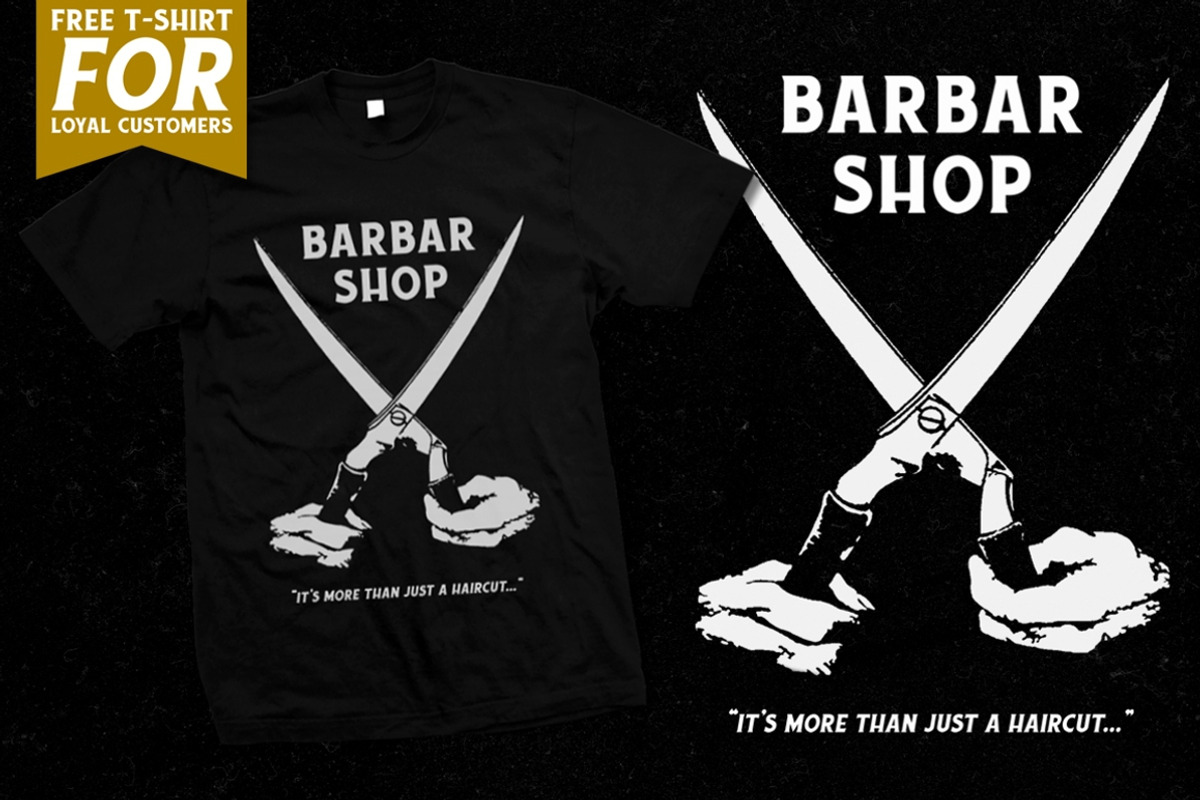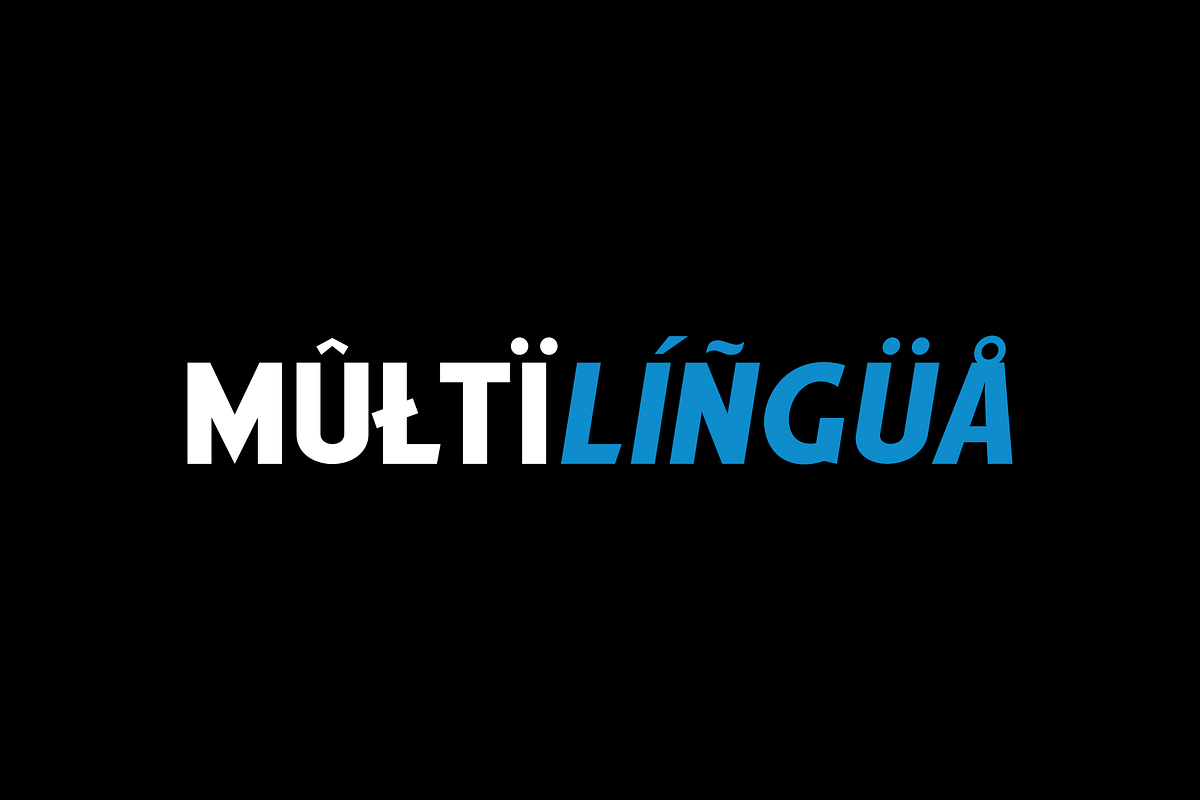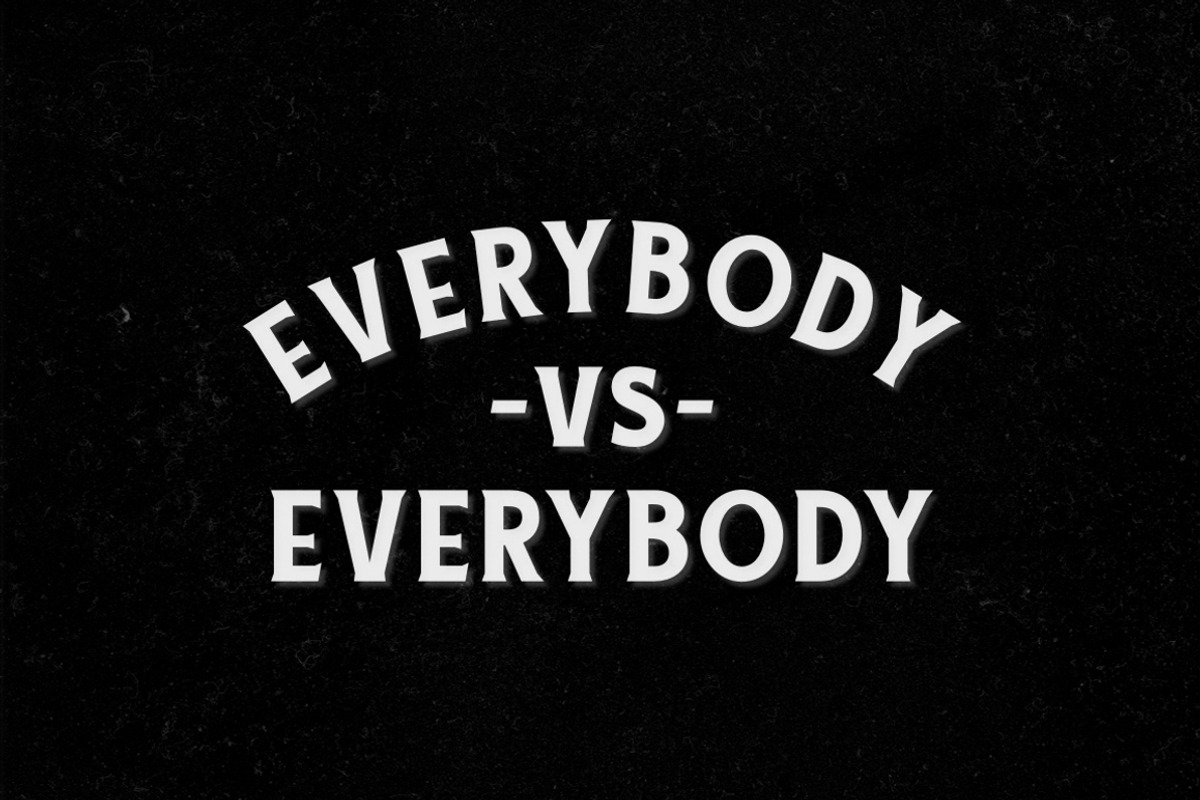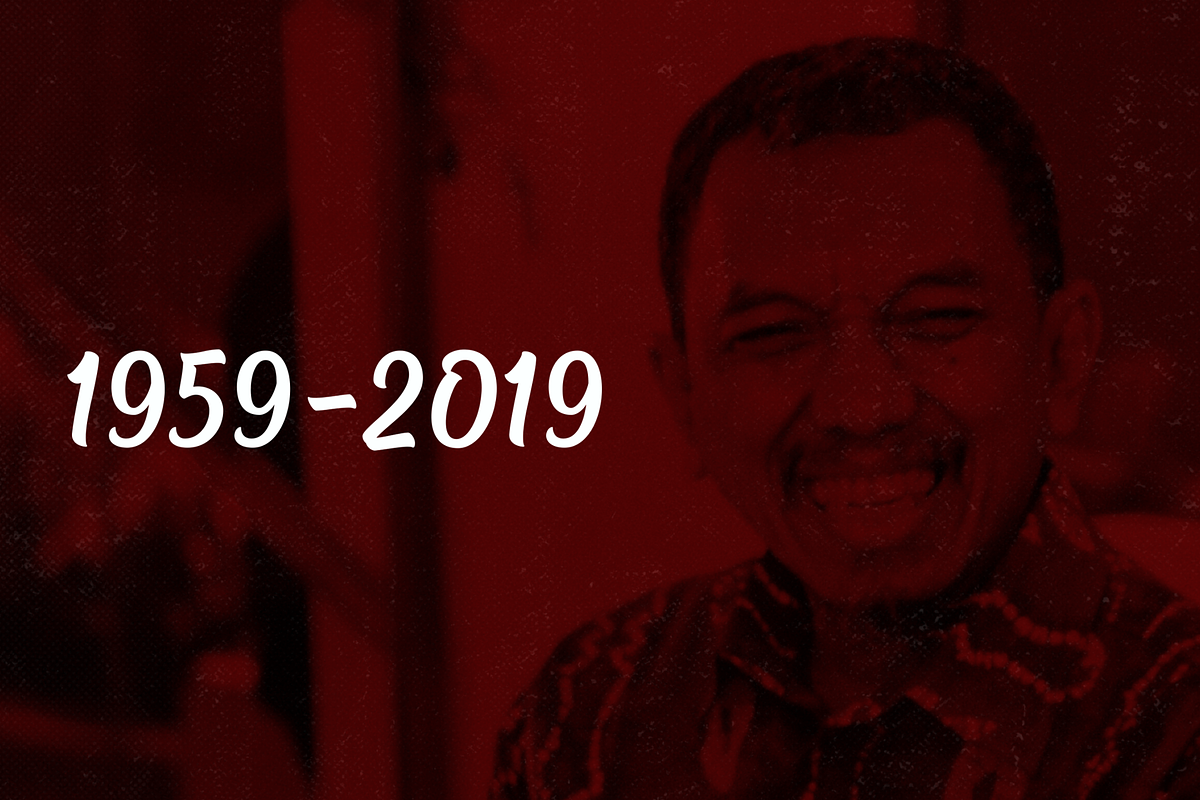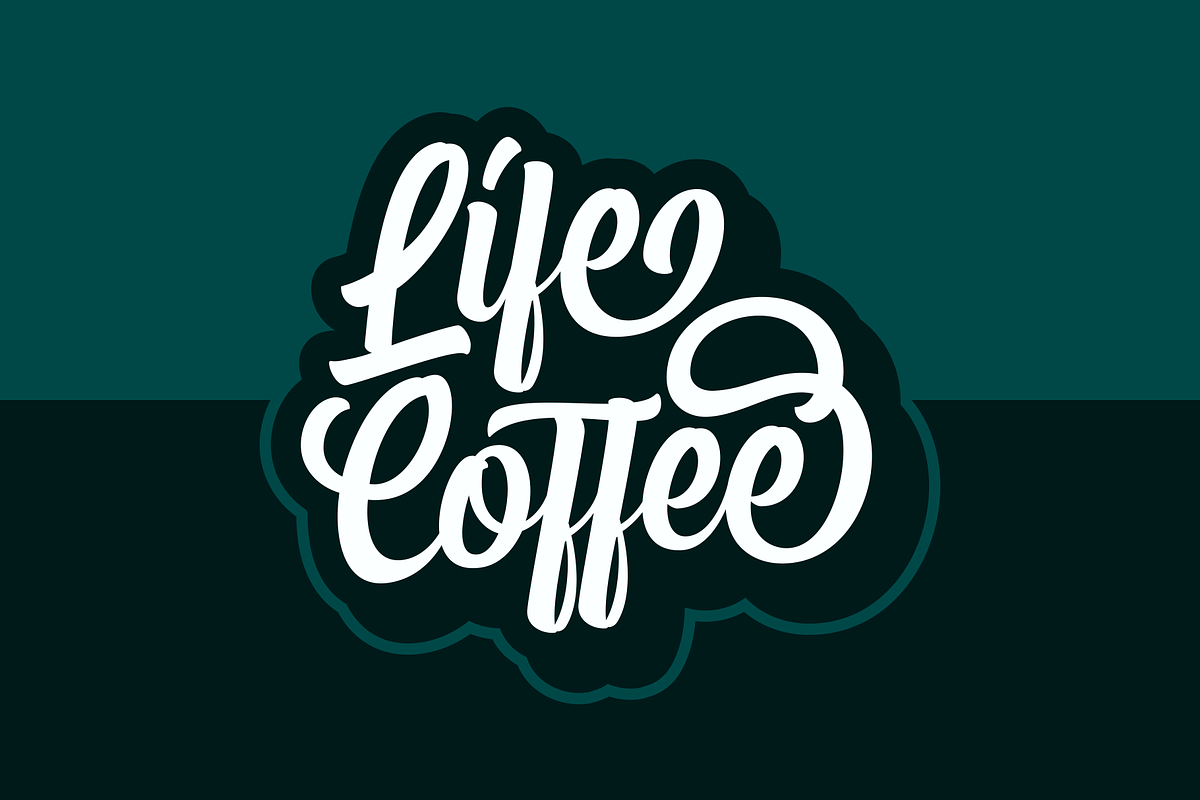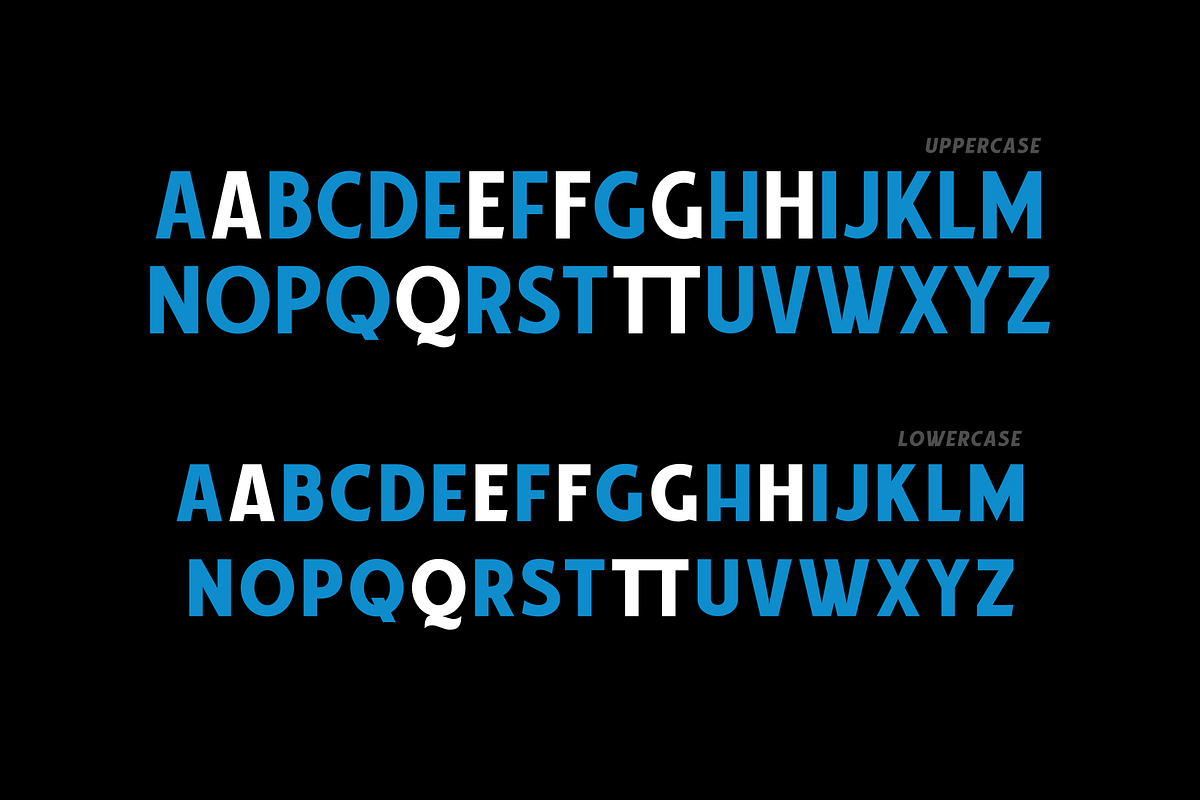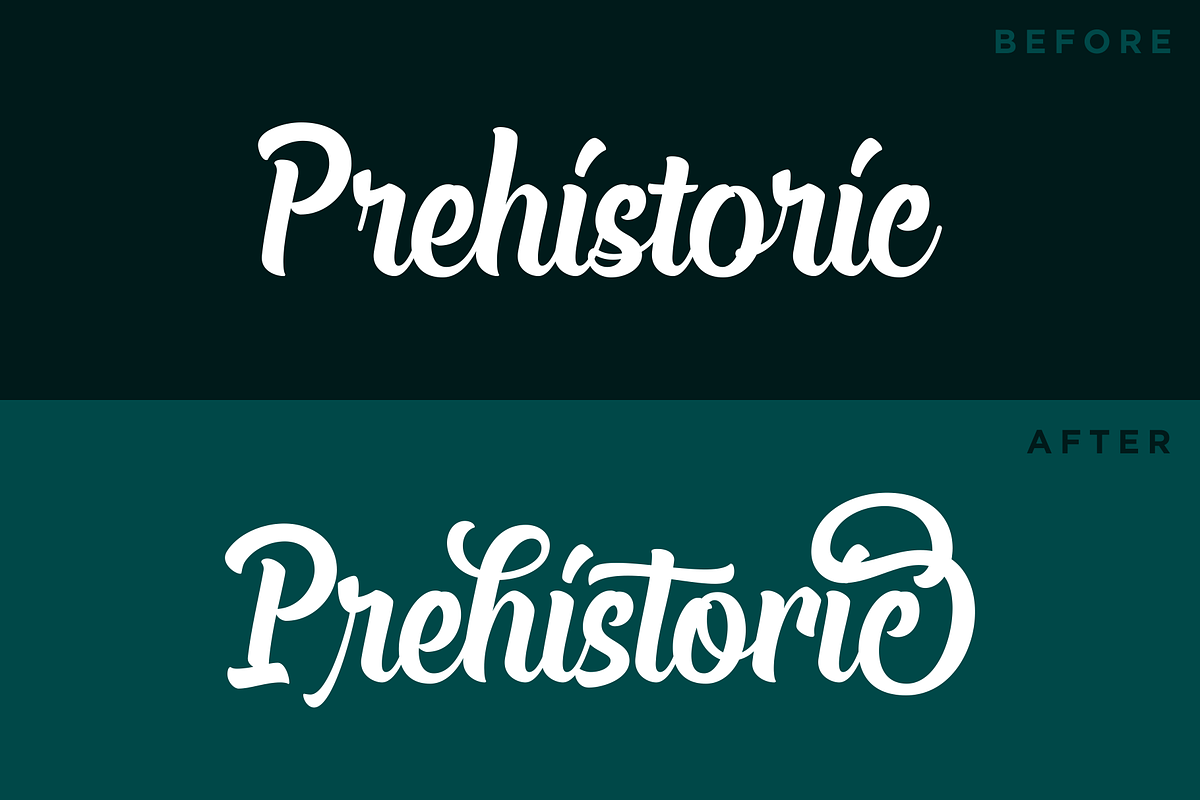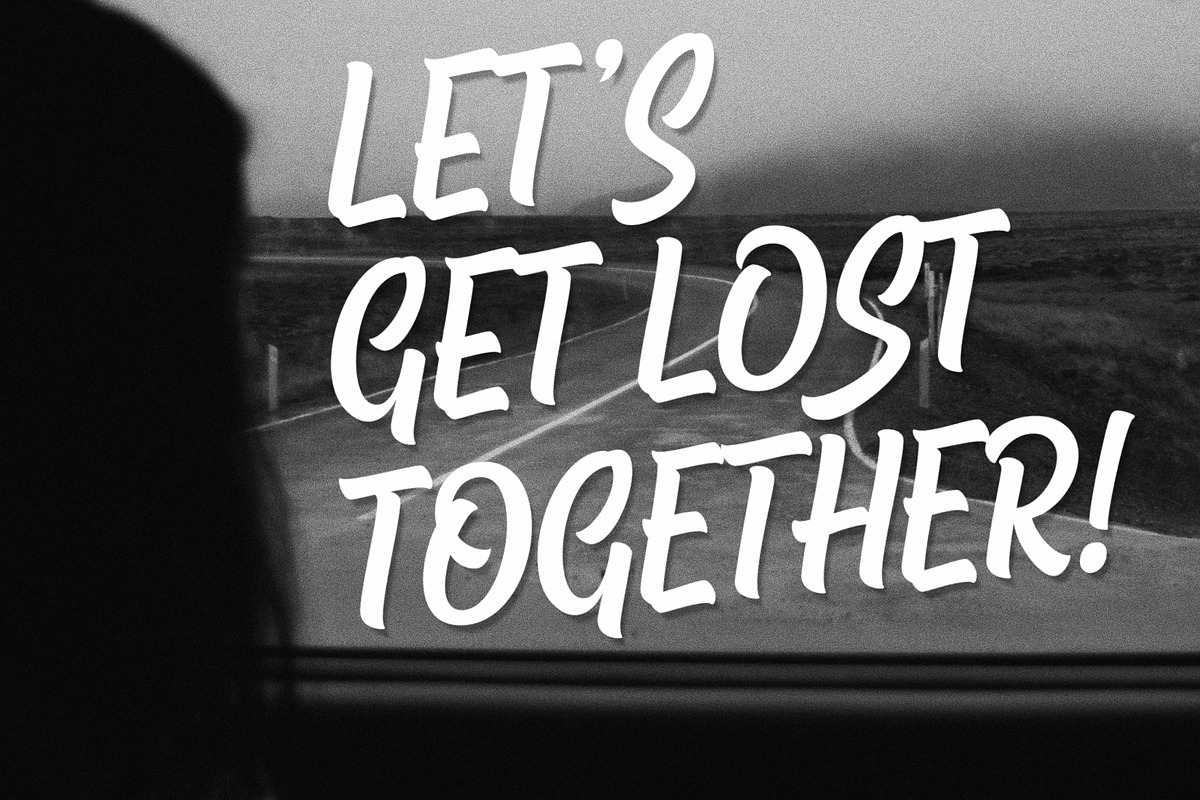
Chuck Noon Family
"If the kids are united, we will never be divided..."
Yes! The Chuck Noon fonts are now united to one family. This pack is made of four long lost kids; Brush, Script, Sans and Serif. The Sans and Serif are heavily inspired by the vintage letters used in old advertisements, while the Brush and Script ones are inspired from the signpainting culture. They're digitally crafted with high attention to the details, too. You also save more than 50% if you purchase them all together.
Perfect addition to your designing arsenal if you're into clean and bold design style. All packed with multilingual language characters and various OpenType feature, lets you play with lots of letter combinations. Suits best for logo/logotype, poster/t-shirt designs, food/beverage labels, hipster quotes, greeting cards, wedding invitations, and many more. Its versatility will level up your designs!